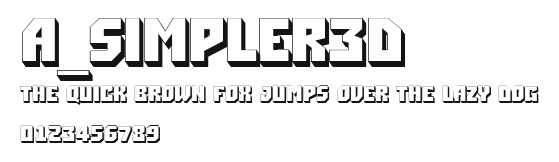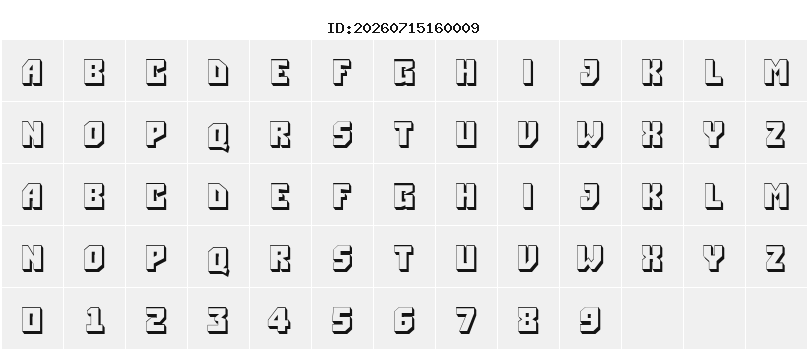
• Font Name: a_Simpler3D
• Designer: W.Chufarofsky & M.Slutsker
About a_Simpler3D.ttf
a_Simpler3D.ttf is a modern, elegant sans-serif font designed for ultimate readability and visual harmony. Perfect for branding, headlines, web design, and print materials.